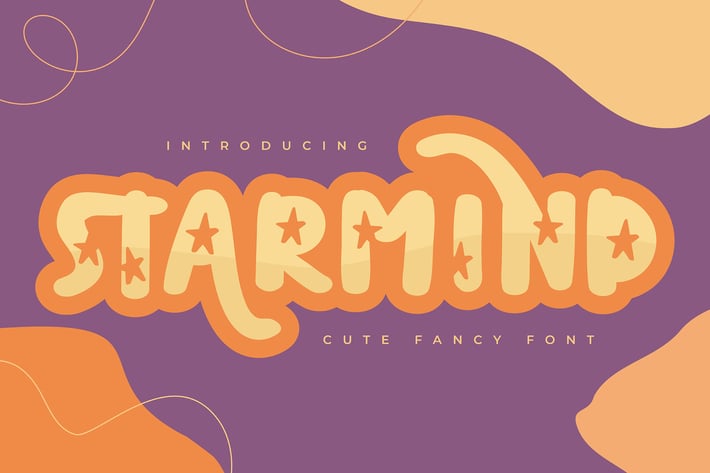
Starmind | Cute Fancy Font
Starmind | Cute Fancy Font with a calligraphy style, So beautiful on invitation like greeting cards, branding materials, business cards, quotes, posters, and more!